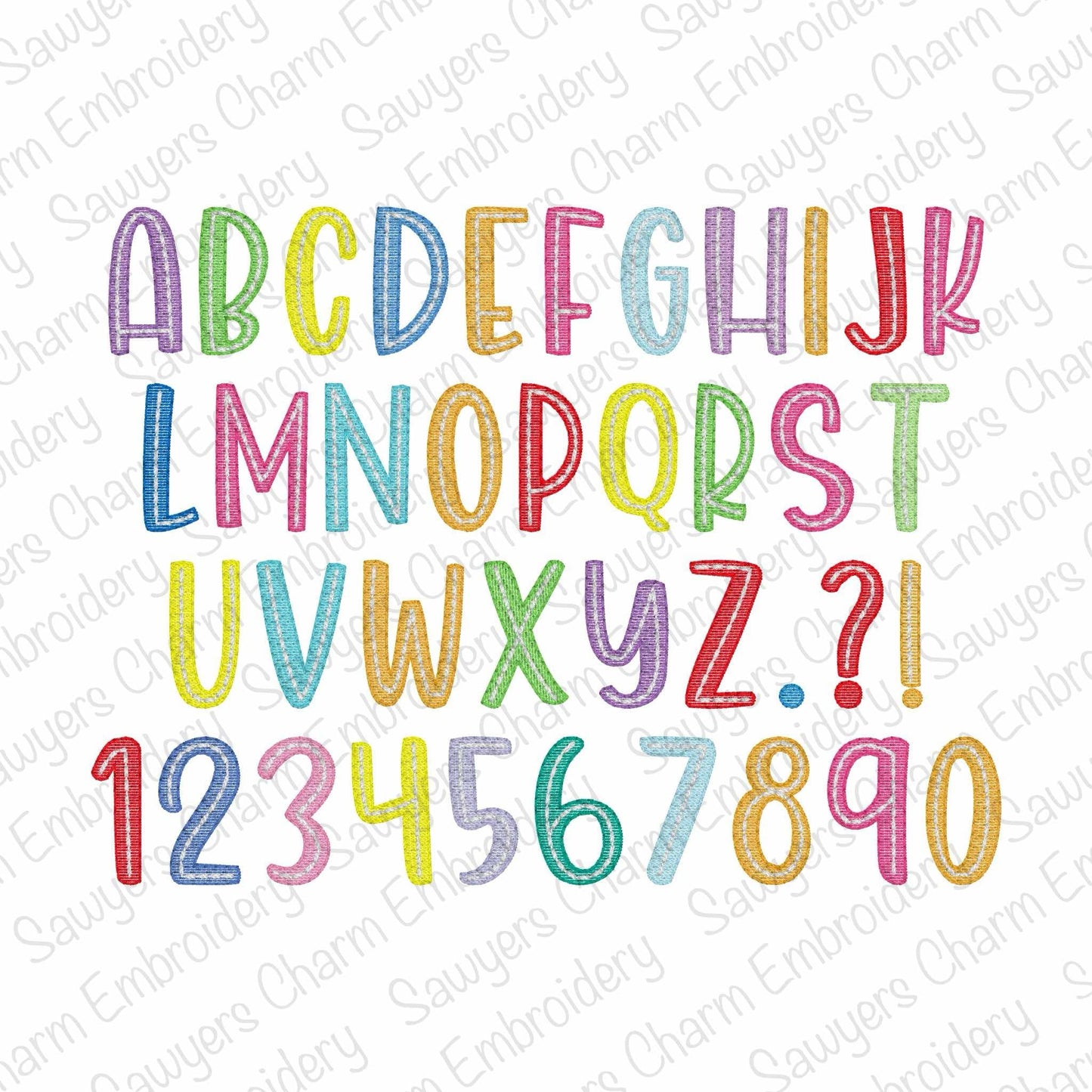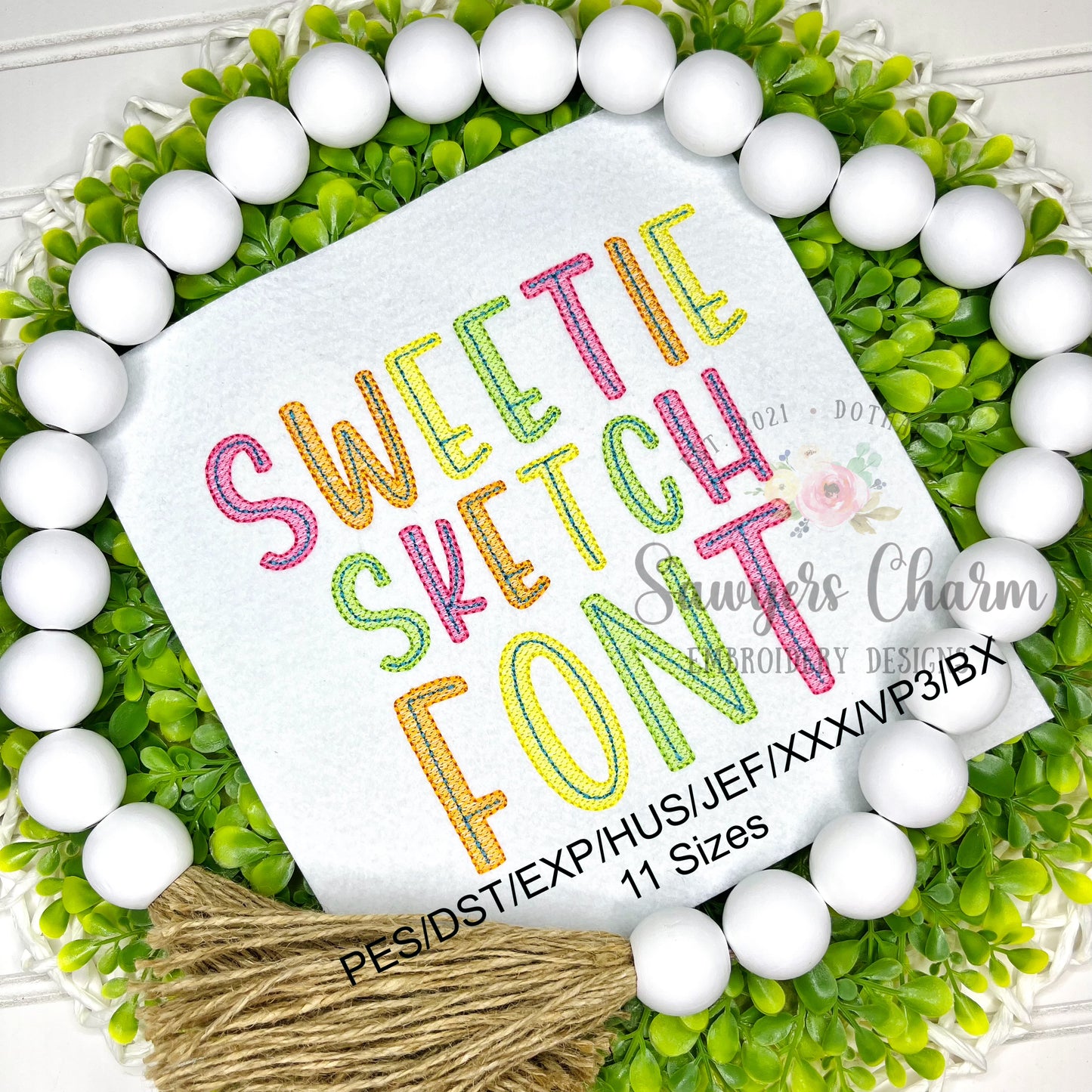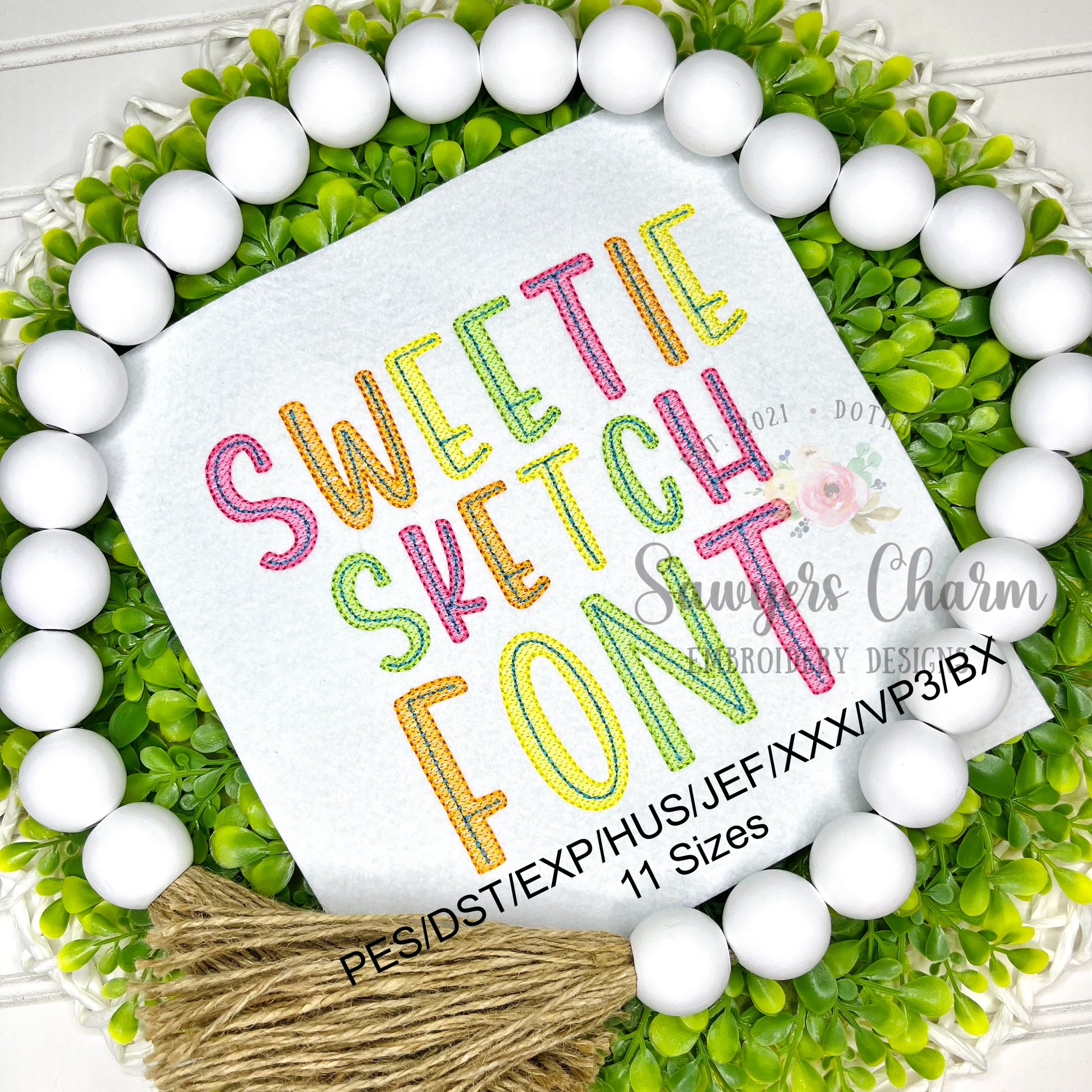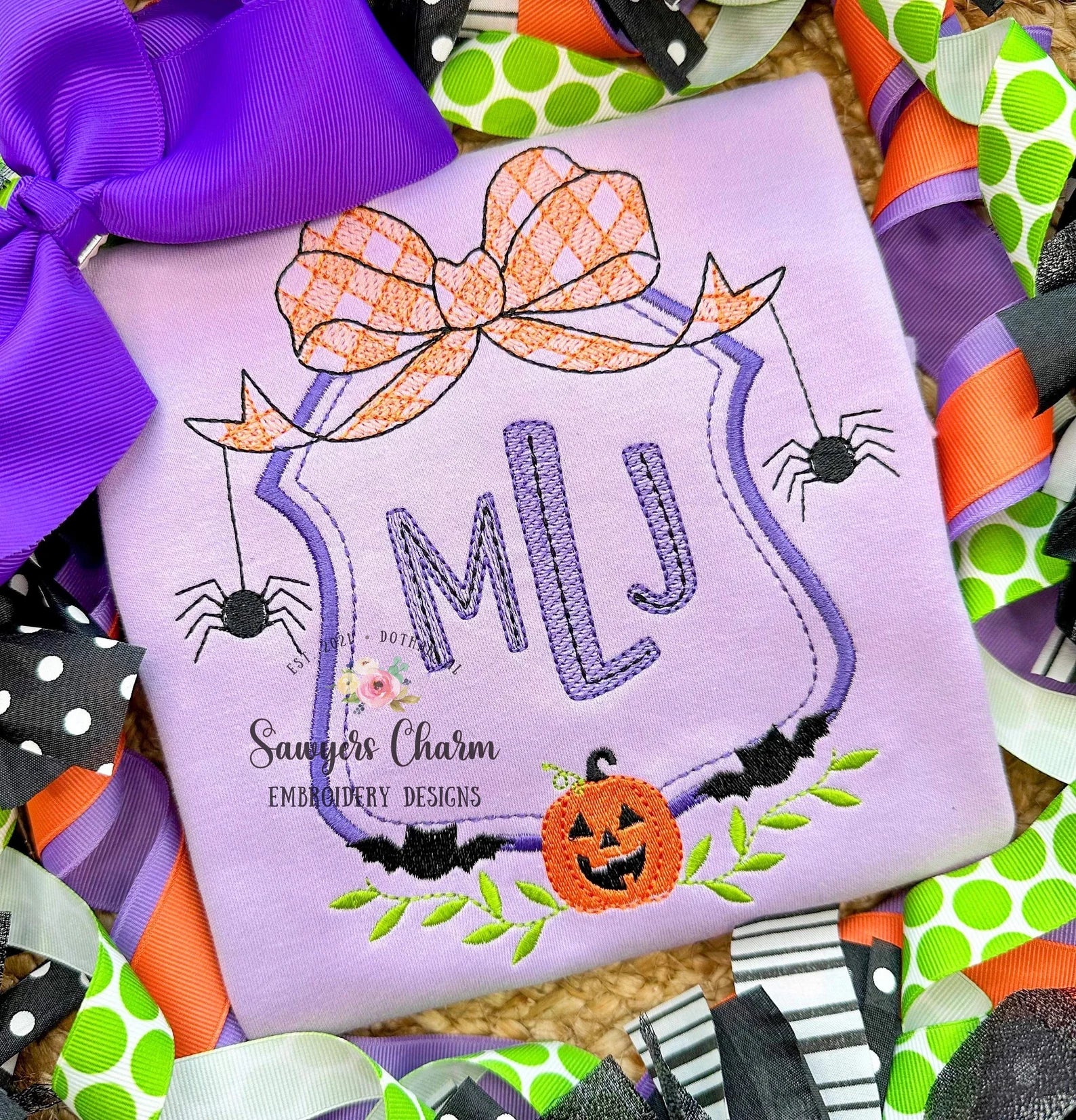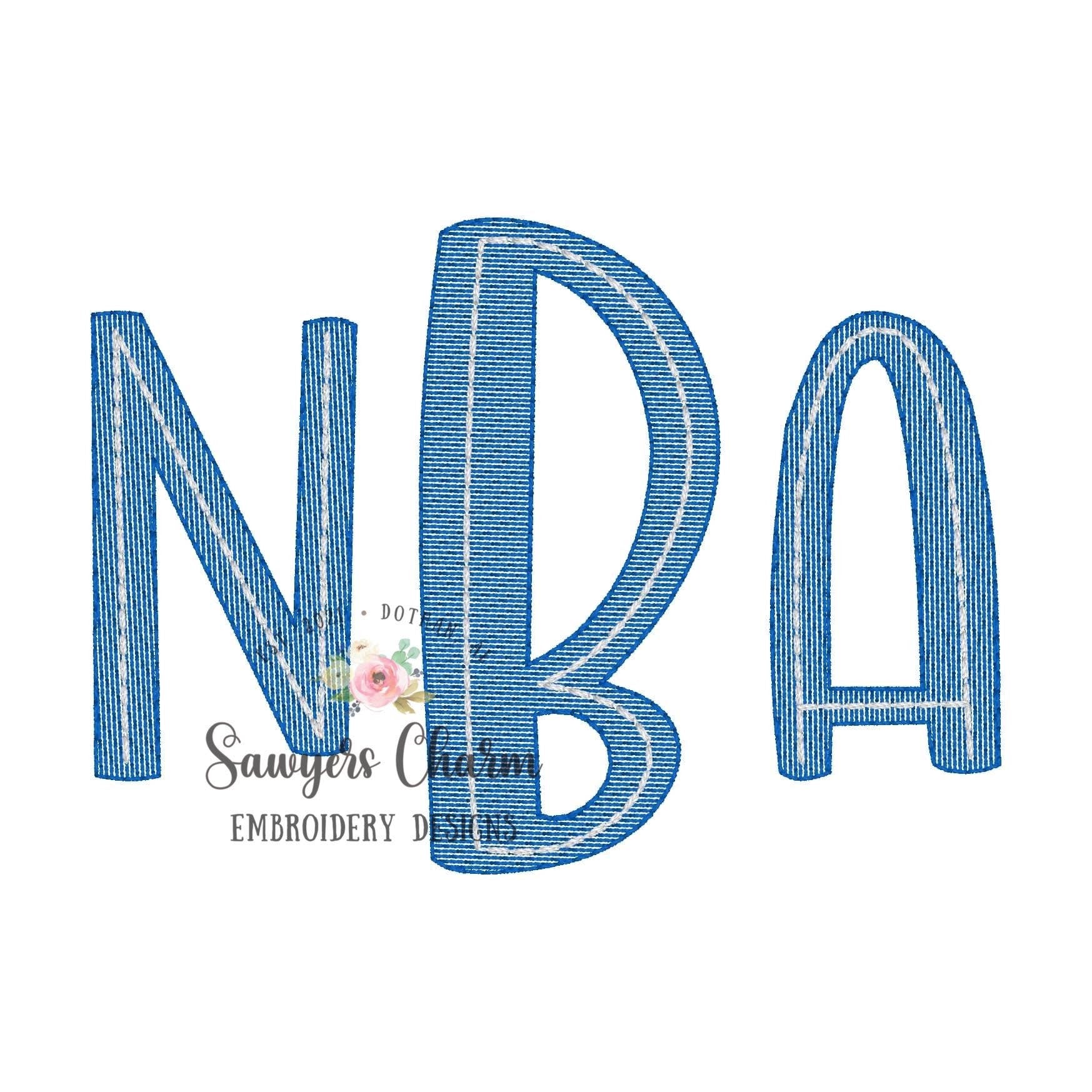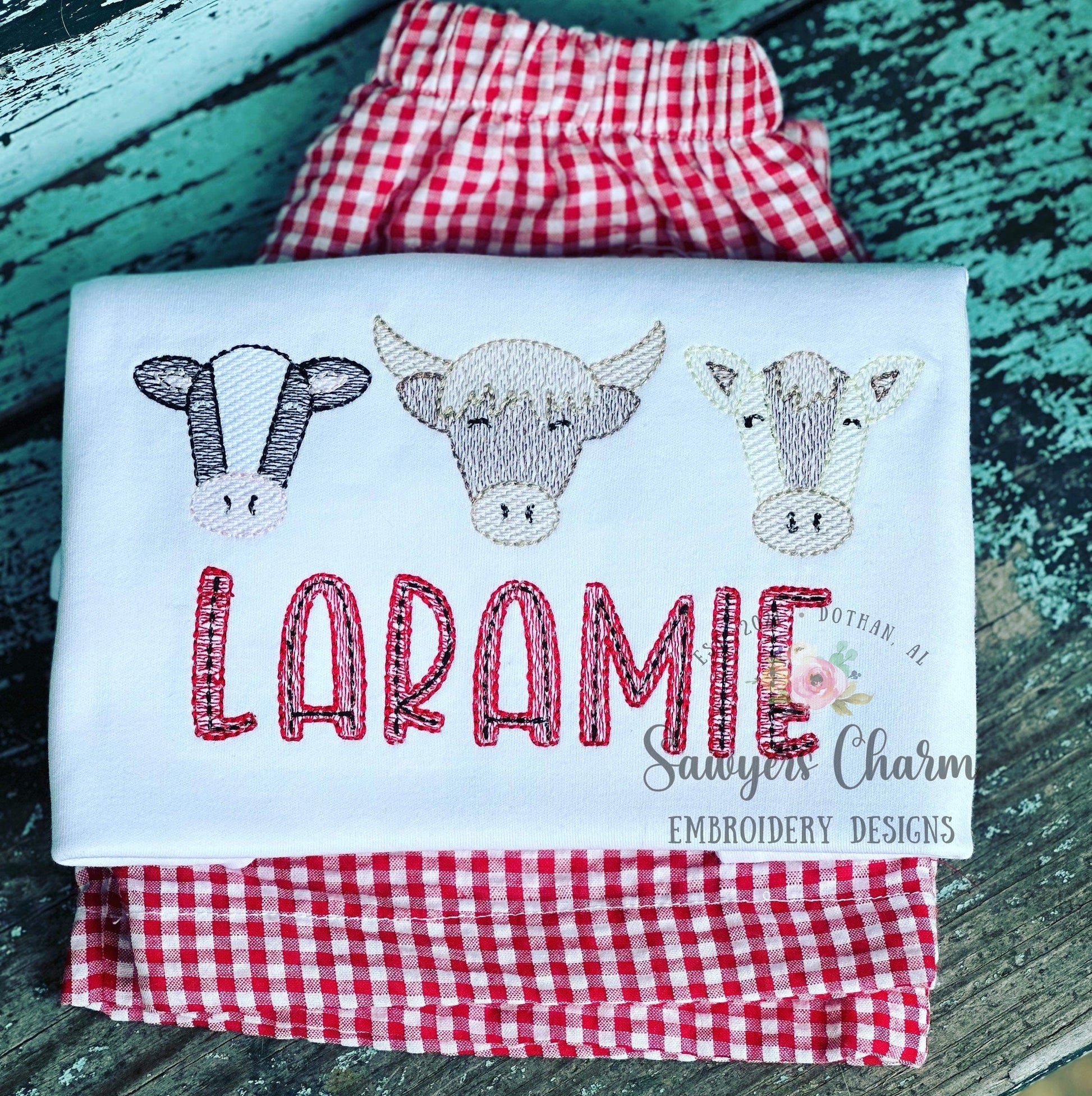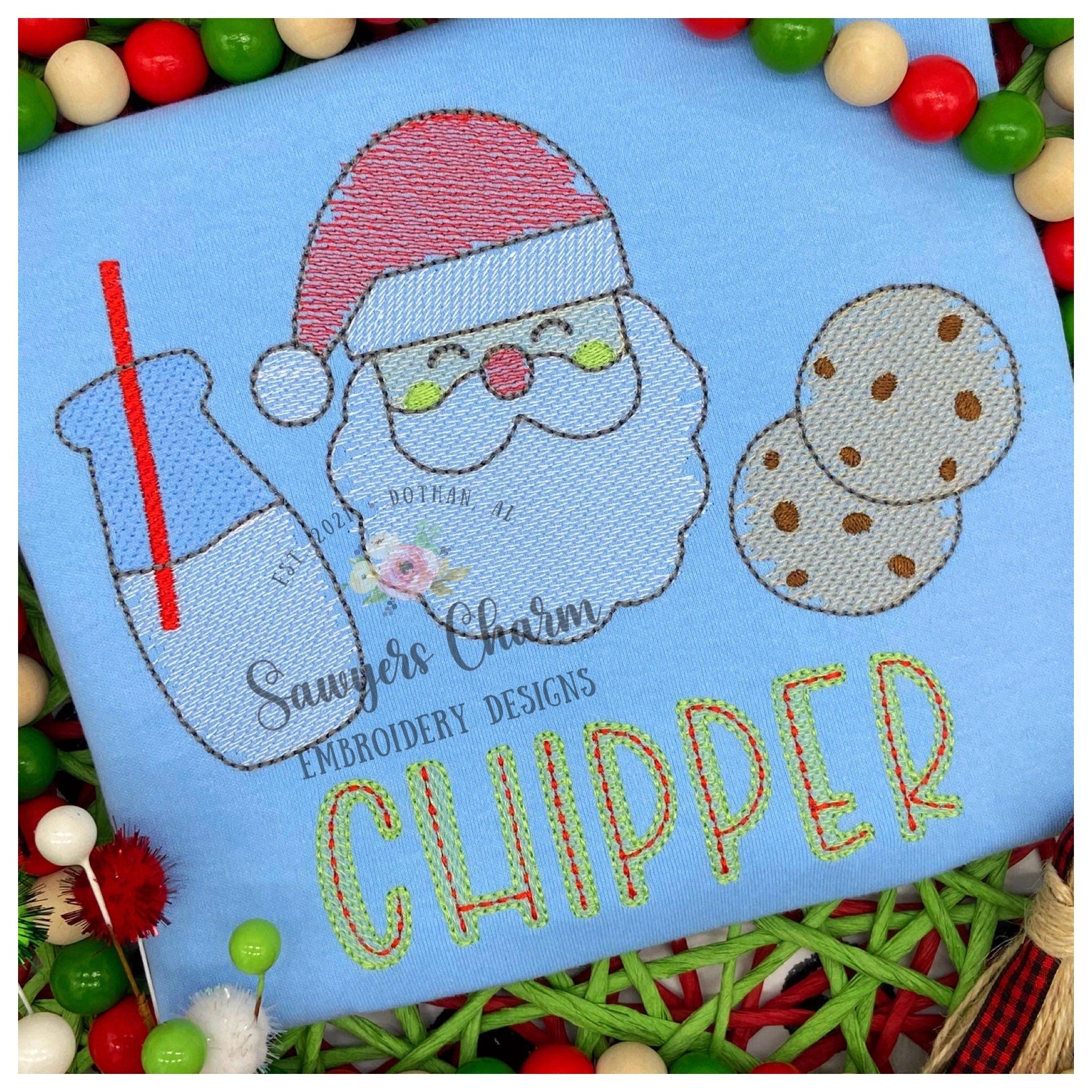
Sweetie Sketch machine embroidery font, bean stitch details, 11 sizes, BX included, numbers and punctuation, perfect for monograms, girl & boy, quick stitch
This embroidery font comes in 11 sizes.....1", 1.25", 1.5", 1.75", 2", 2.25", 2.5", 2.75", 3", 3.25", and 3.5". This is a light fill sketch font with bean stitch finishing details. This has all 26 capital letters, numbers 0-9, and a period, exclamation point, and question mark. So many possibilities with this font! :)